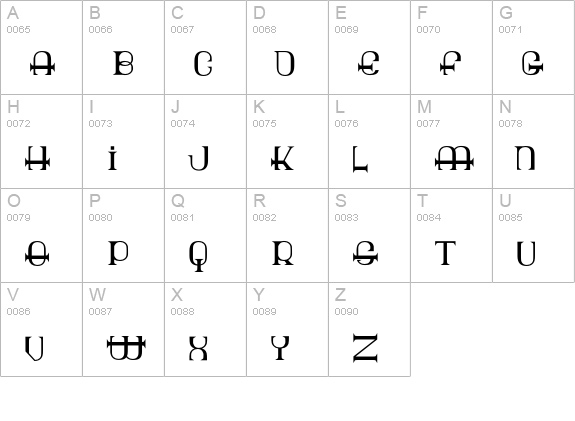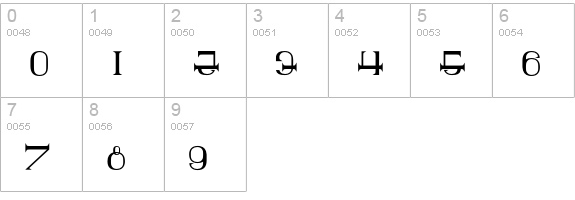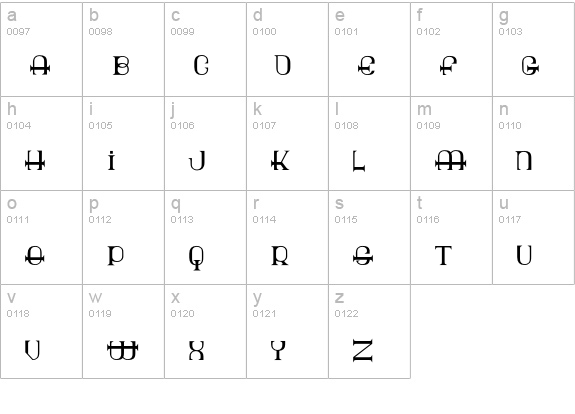
Sillbat Font Details
Sillbat font is a stunningly creative and versatile typeface that is sure to make a statement in any design project. With its unique and eye-catching letterforms, this font effortlessly captures attention and adds a touch of elegance to any text. Designed with precision and attention to detail, Sillbat font offers a wide range of weights and styles, making it suitable for a variety of design purposes. Whether you're working on a logo, branding materials, website design, or even a personal project, this font will elevate your work to new heights. One of the most appealing aspects of Sillbat font is that it is free. Yes, you read that right - this high-quality font is available for free download at FontsMarket.com. You can now enhance your designs without breaking the bank or compromising on quality. With its smooth curves, balanced proportions, and impeccable legibility, Sillbat font is a true gem in the world of typography. Its clean and sophisticated aesthetic will bring a sense of professionalism and refinement to any project, making it a perfect choice for both professional designers and enthusiasts alike. So why wait? Don't miss out on the opportunity to enhance your designs with the elegance and charm of Sillbat font. Head over to FontsMarket.com and download this fantastic font for free today. Elevate your designs and make a lasting impression with Sillbat font.